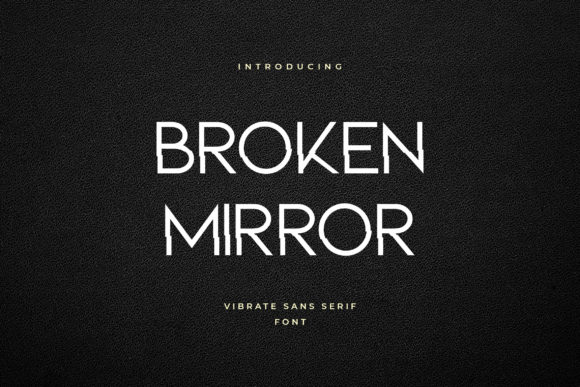
In a world craving authenticity and individuality, discover Broken Mirror Font — a testament to the power of self-expression. crafted by the imaginative minds at uicreativenet, Broken Mirror isn't just a font; it's an invitation to unleash your creativity and make a bold statement.
Step into a realm of captivating design, where letters dance with elegance and charm. Broken Mirror's display font family captivates with its playful imperfections, reflecting the beauty of a shattered mirror. Each character bears a unique personality, inviting you to weave captivating stories and forge meaningful connections.
More than just a font, Broken Mirror is a versatile chameleon, adapting seamlessly to a myriad of creative endeavors. Whether you're crafting a modern resume, designing eye-catching posters, or adding a touch of whimsy to your social media posts, Broken Mirror stands ready to elevate your vision.
Unleash your inner artist and let Broken Mirror's enchanting allure transform your designs into masterpieces. Its user-friendly nature makes it a joy to work with, ensuring a smooth and effortless creative process.
Embrace the beauty of imperfection and let Broken Mirror's captivating essence add a touch of magic to your digital creations. Its ability to blend seamlessly with a diverse range of design styles makes it the perfect choice for those seeking a font that reflects their unique aesthetic.
So, dive into the world of Broken Mirror Font, where creativity knows no bounds. Let your imagination soar, let your words dance, and let your designs shine with a captivating allure that will leave a lasting impression.